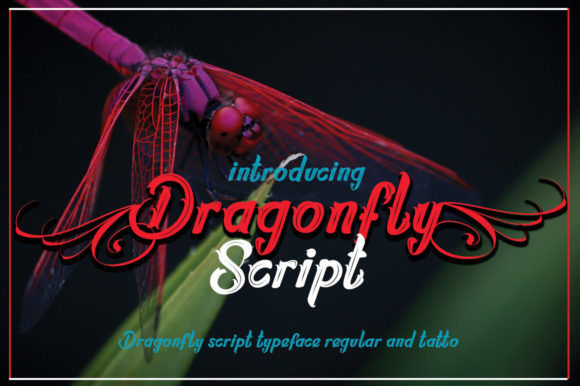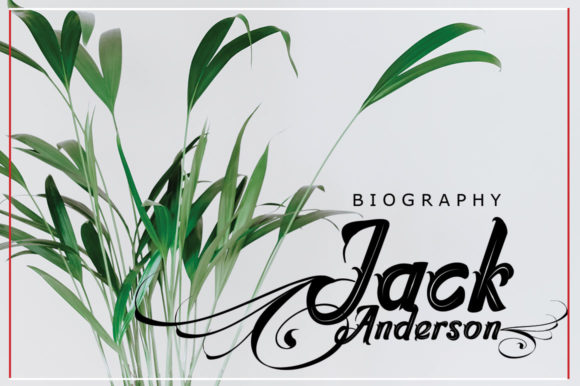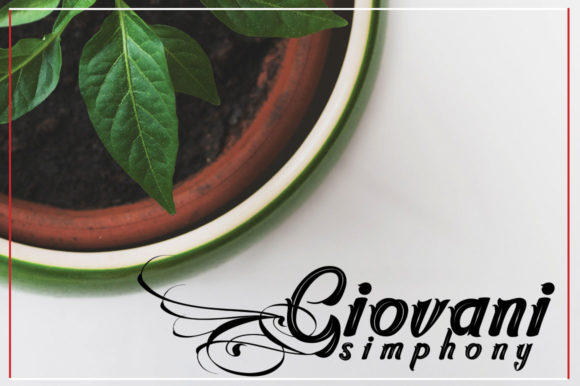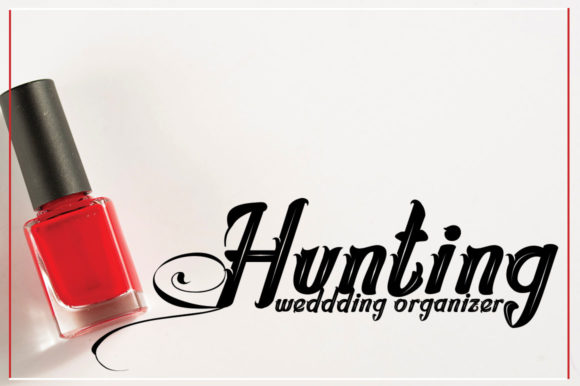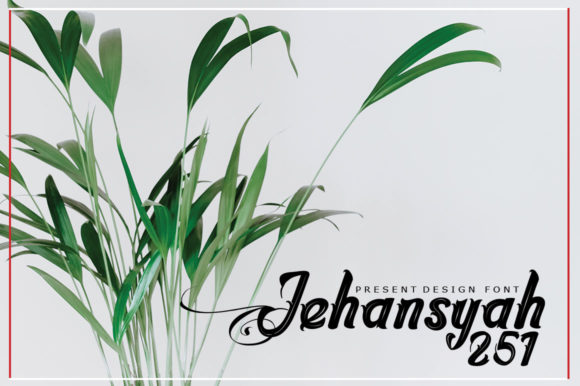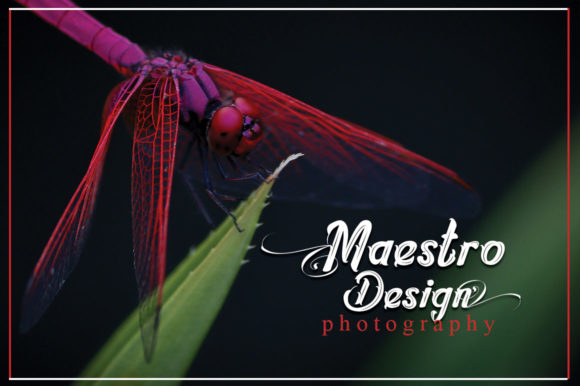
Dragonfly Script Font: Elevate Your Design with a Personal Touch
Are you tired of using the same old fonts in your design projects? Do you want to add a personal touch that sets your work apart from the rest? Look no further than the Dragonfly Script Font. This beautiful and unique handwritten font is perfect for designers and crafters looking to add a light and airy feel to their projects.
What is Dragonfly Script Font?
Dragonfly is a carefully crafted handwritten font with a light feel that is sure to add a personal twist to any design project. Its unique and elegant style makes it perfect for a wide range of applications, from wedding invitations and party decorations to branding and advertising materials.
Key Features of Dragonfly Script Font
- Unique Handwritten Style: Dragonfly boasts a distinctive handwritten style that is both elegant and playful.
- Light Feel: The font’s light feel makes it perfect for designs where you want to convey a sense of airiness and sophistication.
- Highly Versatile: Whether you’re working on a wedding invitation, a branding project, or a craft tutorial, Dragonfly is versatile enough to fit in seamlessly.
- Easily Readable: Despite its elegant and cursive nature, Dragonfly remains highly readable, making it suitable for both headings and body text.
Uses of Dragonfly Script Font
The possibilities are endless with Dragonfly Script Font. Here are a few ideas to get you started:
- Wedding and Party Decorations: Use Dragonfly to create beautiful wedding invitations, party decorations, and thank you cards that set the tone for your special day.
- Branding and Advertising: Add a personal touch to your brand with Dragonfly. It’s perfect for logos, packaging, and advertising materials that need a unique and elegant feel.
- Crafting and DIY Projects: If you’re a crafter or DIY enthusiast, Dragonfly can add a professional and personalized touch to your project tutorials, labels, and packaging.
- Digital and Print Media: Use Dragonfly in your digital and print media for headings, titles, and quotes to add an elegant and sophisticated feel.
Why Choose Dragonfly Script Font?
In a world where design trends come and go, Dragonfly Script Font stands out for its timeless elegance and versatility. Here are a few reasons why you should consider adding it to your font collection:
- Stand Out from the Crowd: With Dragonfly, you can create designs that stand out from the crowd and leave a lasting impression on your audience.
- Easily Customizable: The font is highly customizable, allowing you to adjust it to fit your design needs perfectly.
- Support for Multiple Languages: Dragonfly supports multiple languages, making it a great choice for global brands and projects.
Dragonfly Script Font is more than just a font – it’s a design statement. Its unique and elegant handwritten style, combined with its light feel and versatility, makes it an excellent choice for designers and crafters looking to add a personal touch to their projects. Whether you’re working on a wedding invitation, a branding project, or a craft tutorial, Dragonfly is sure to elevate your design and set it apart from the rest.